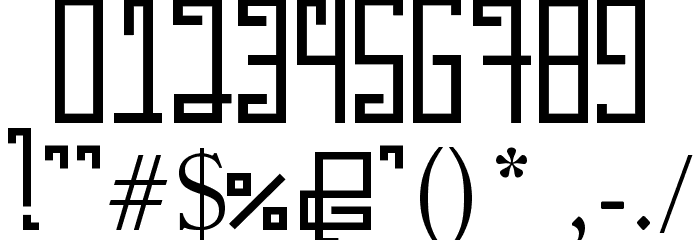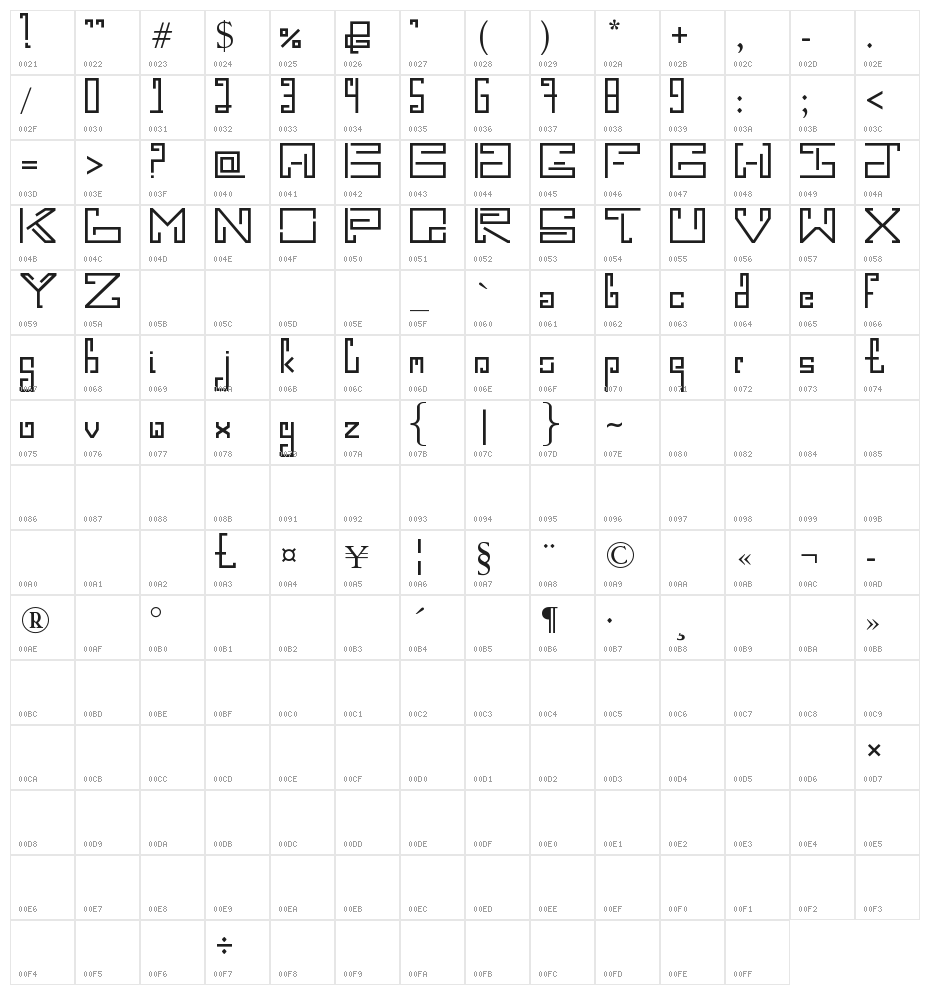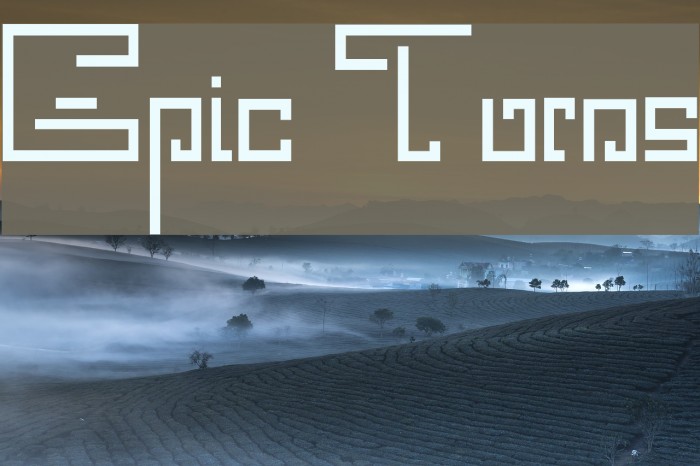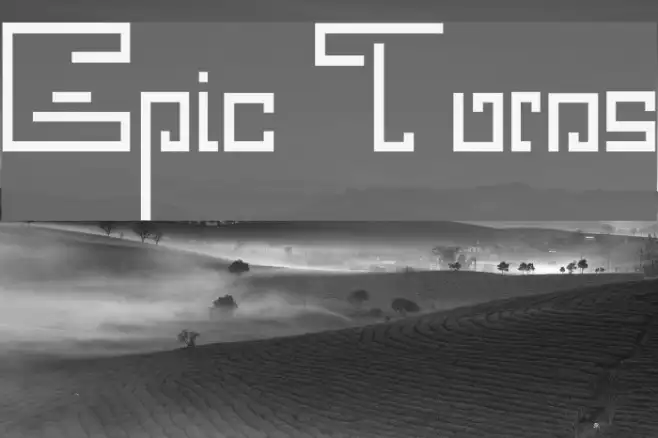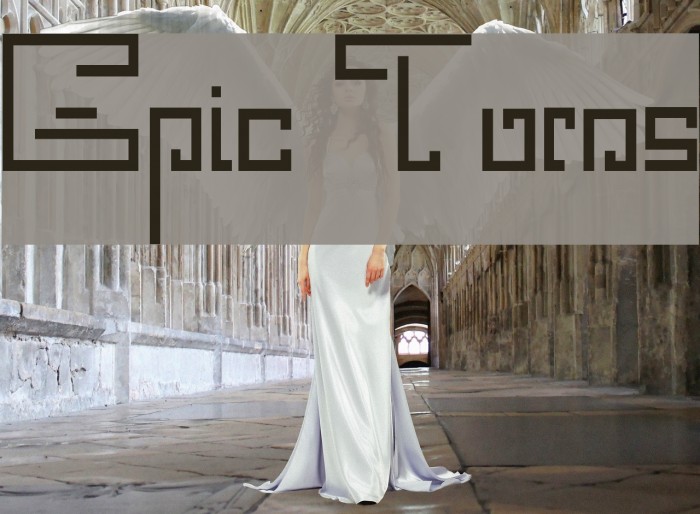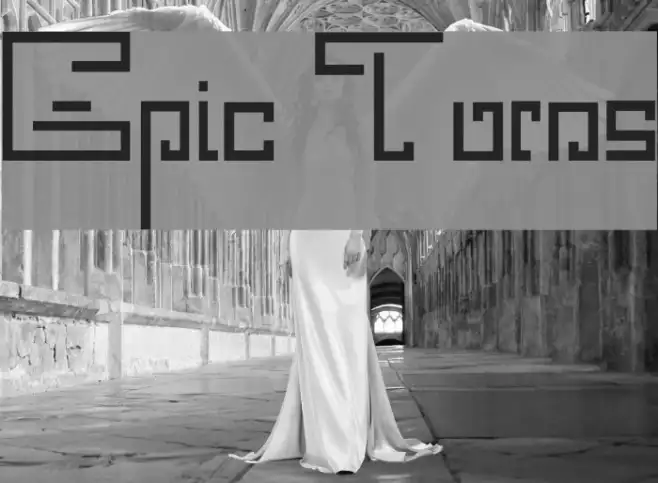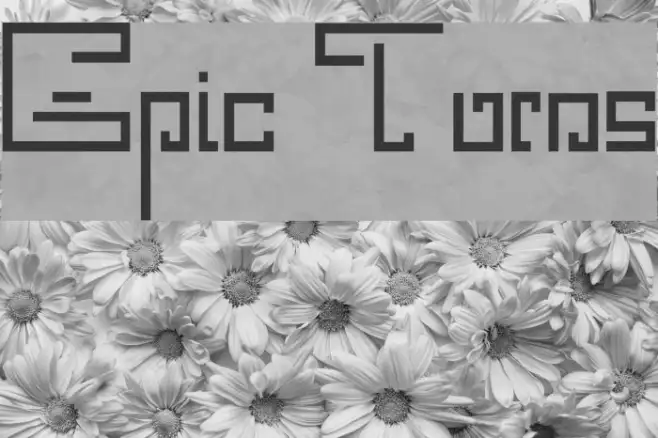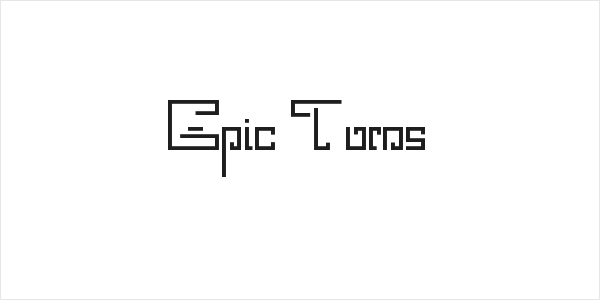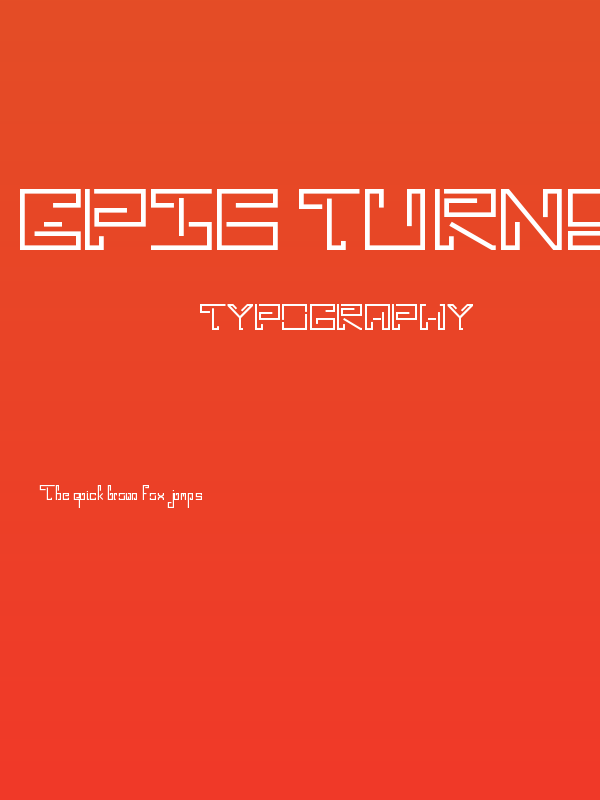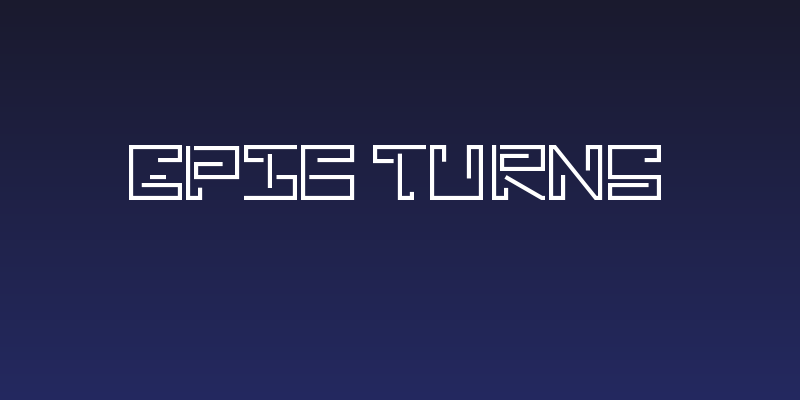
Epic Turns Font
This font features a geometric and angular design, characterized by its sharp, clean lines and square-like shapes. The uppercase letters are uniform in height and width, creating a cohesive and structured appearance. The lowercase letters maintain the same angular style, offering a modern and futuristic feel. Numbers and special characters are designed with the same precision, ensuring consistency throughout. The overall aesthetic is bold and striking, making it suitable for impactful visual statements.
| Proposed Projects | Ideal for tech branding, futuristic posters, video game titles, and digital media. |